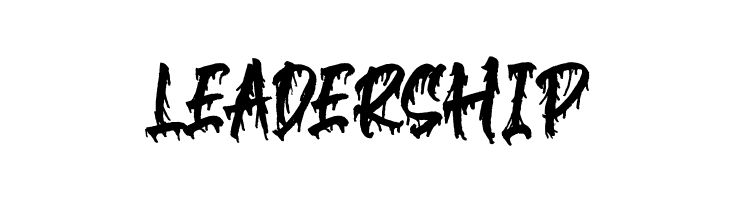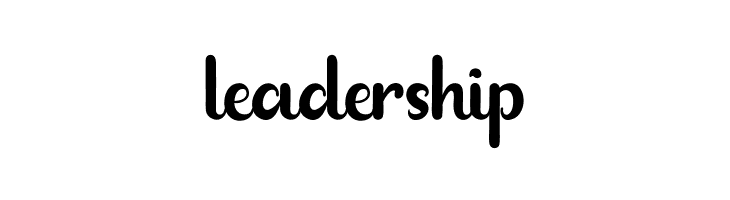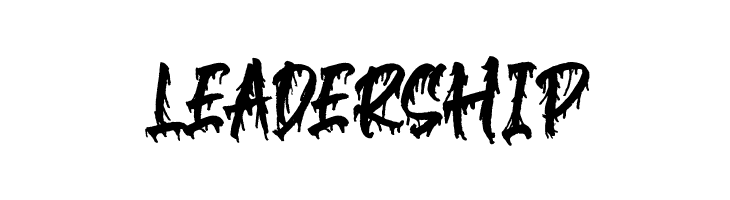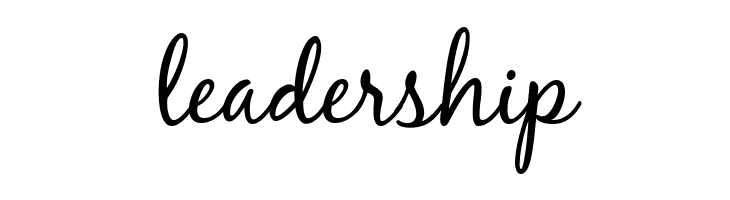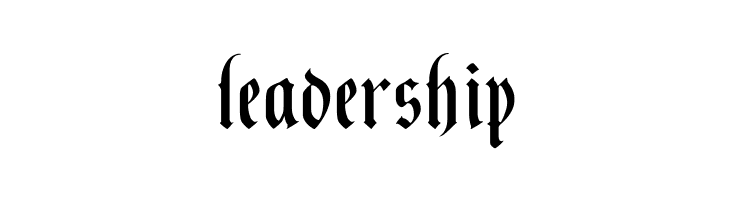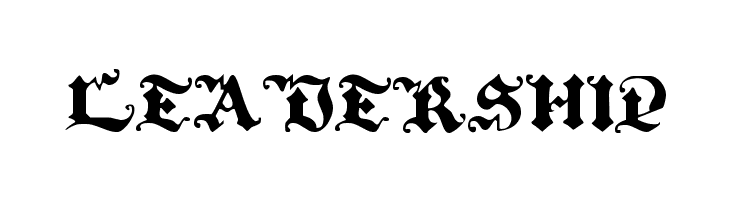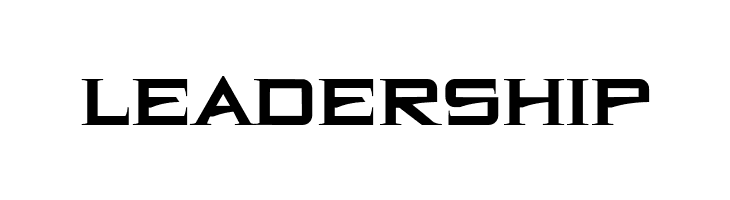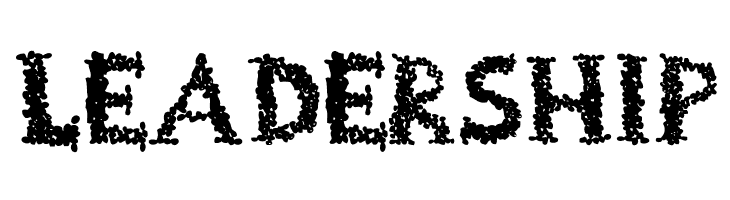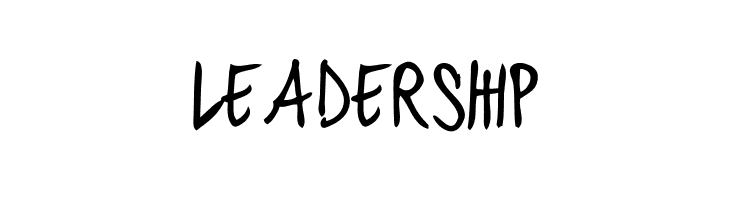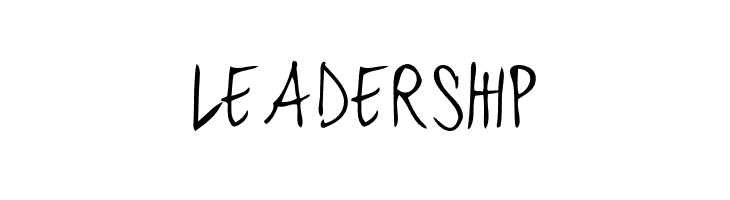
A bold blackletter font with sharp, angular lines and high contrast.
A bold, traditional Blackletter font with sharp, angular lines and a medieval aesthetic.
A classic Blackletter font with sharp, angular lines and intricate detailing.
A bold, graffiti-inspired font with sharp, angular edges and dynamic strokes.
A graffiti-inspired font with sharp, angular lines and dynamic, energetic characters.
A graffiti-inspired, artistic font with dynamic and expressive characters.
An edgy, hand-drawn font with sharp, angular lines and a dynamic appearance.
A graffiti-inspired font with sharp, angular lines and dynamic curves.
A bold, hand-drawn font with a textured, graffiti-like style.
An ornate and decorative font with elongated serifs and intricate details.
An ornate blackletter font with bold, angular letterforms and a historical feel.
A traditional Gothic-style font with intricate, angular letterforms and high contrast.
A bold, ornate Blackletter font with sharp, angular lines and historical elegance.
A cursive, handwritten-style font with elegant, flowing letters.
A dynamic, brush-like font with high contrast and an edgy, hand-drawn style.
A bold, high-contrast blackletter font with intricate, gothic-inspired details.
A bold, Gothic-style font with intricate, angular detailing.
A distressed, eclectic font with a cut-out, grungy aesthetic.
A playful, bold script font with a handwritten touch.
A bold, gothic-style font with sharp, thorn-like edges and high contrast.
A bold, playful handwritten font with a lively and casual style.
A bold, ornate Blackletter font with intricate, angular letterforms.
A Gothic-style font with intricate, angular strokes and elaborate serifs.
An ornate and decorative font with intricate swirls and bold strokes.
A bold, high-contrast Blackletter font with intricate, medieval-inspired designs.
A bold, gothic Blackletter font with intricate and ornate detailing.
A playful, hand-drawn script font with a textured, stamp-like finish.
A rugged, distressed font with a hand-drawn, edgy aesthetic.
A bold, jagged, and aggressive font with a hand-drawn, brush-like appearance.
A bold, gothic-style font with sharp, angular edges and dramatic flourishes.
A bold, gothic blackletter font with sharp, angular lines and ornate details.
A bold, gothic-style font with intricate, pointed characters.
A bold, brush-style font with dynamic, hand-painted strokes.